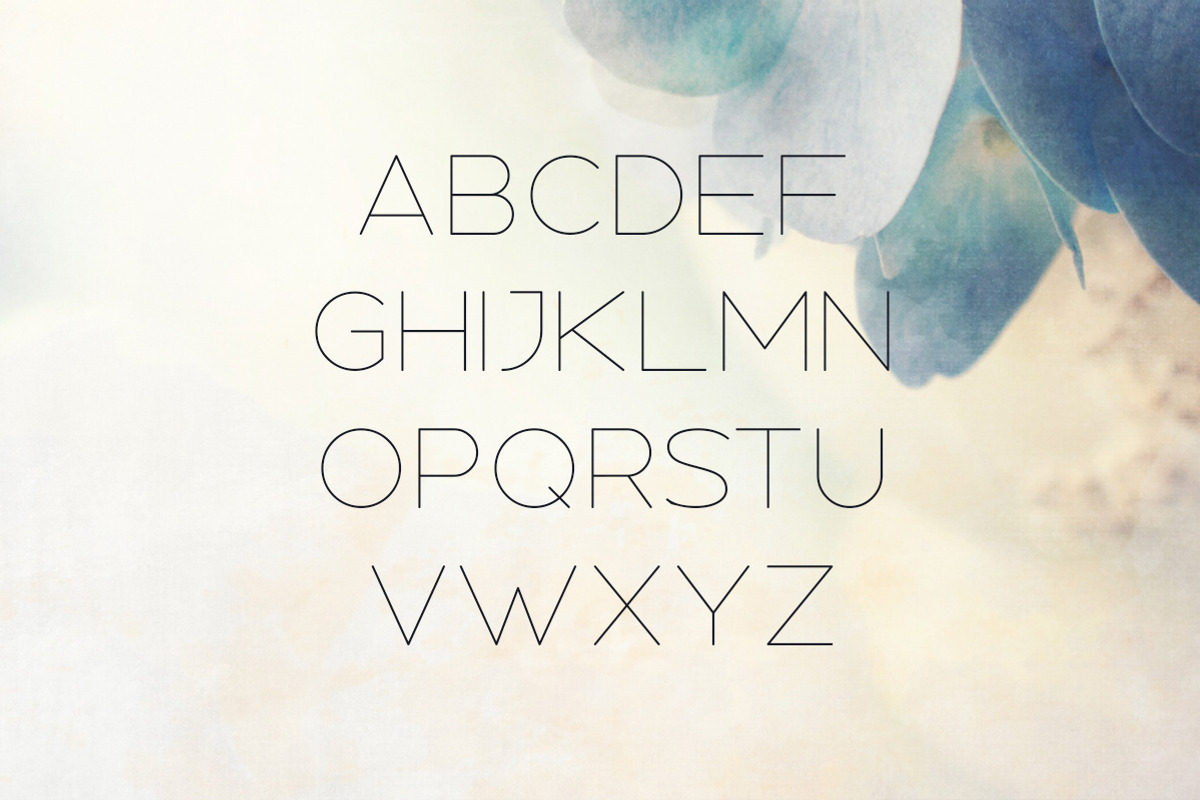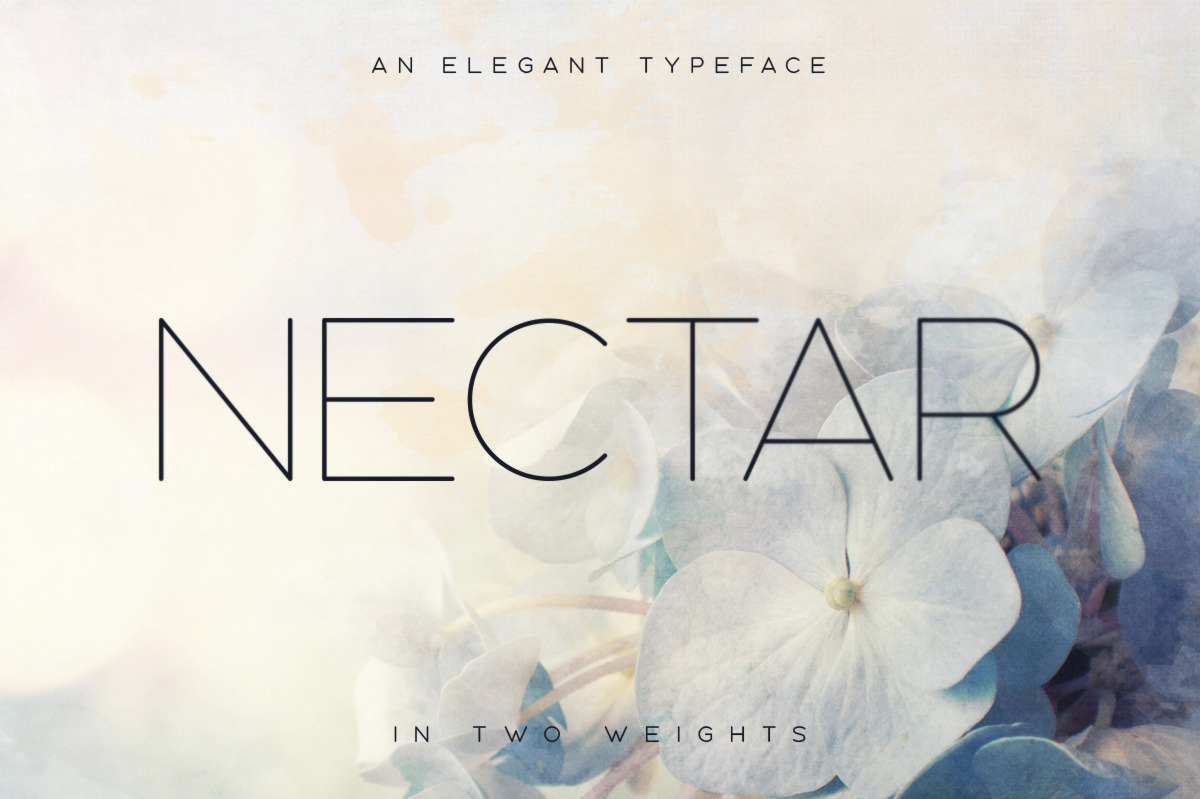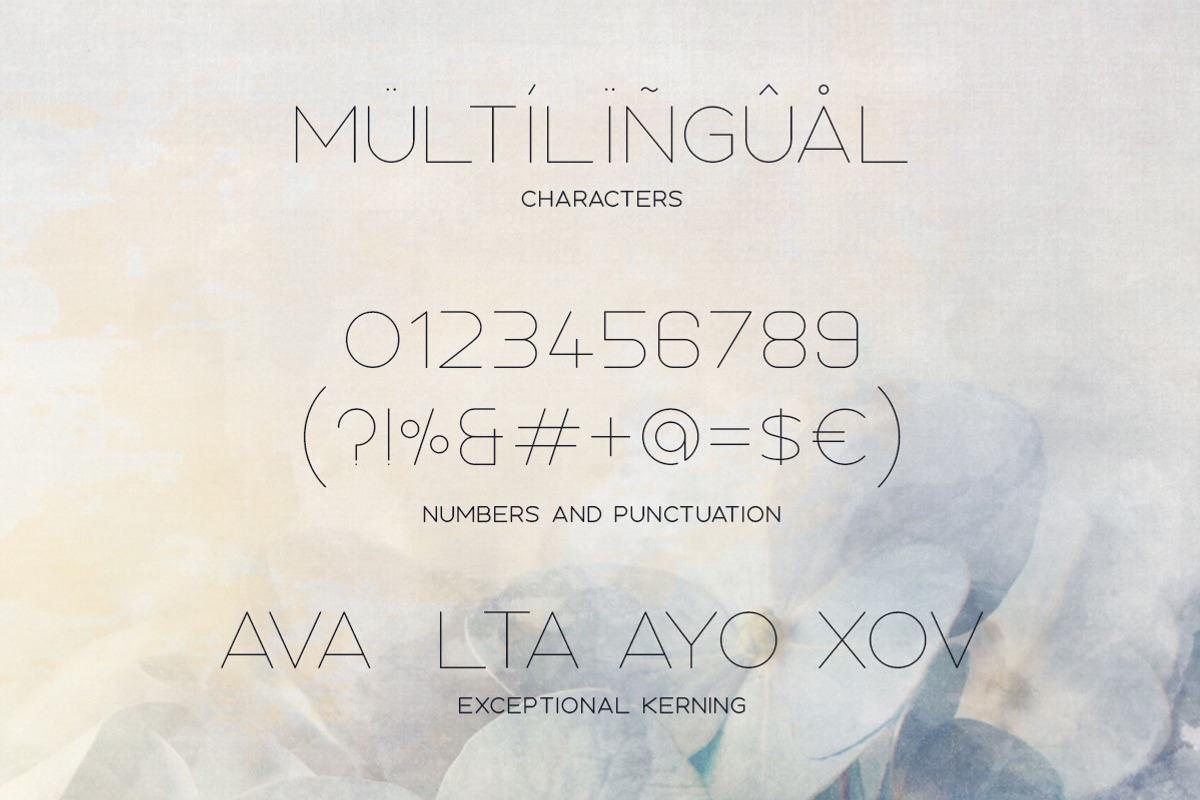
Nectar Typeface
Nectar is a thin and wide sans serif display font that's great for chic titles, elegant invitations and classy logos. It comes in two weights, although I only intended the bold version to be used as subtitles for the regular version, as shown on the fourth screenshot.
Nectar Includes multilingual uppercase letters, numbers, punctuation and two weights.